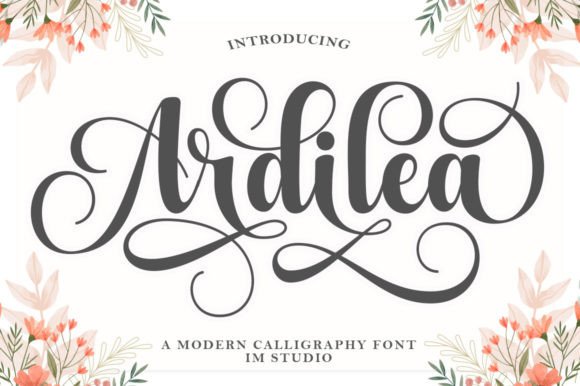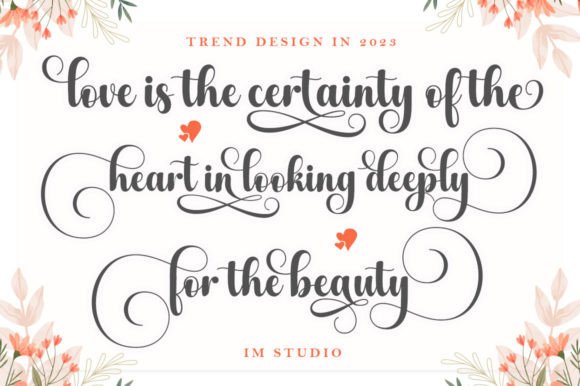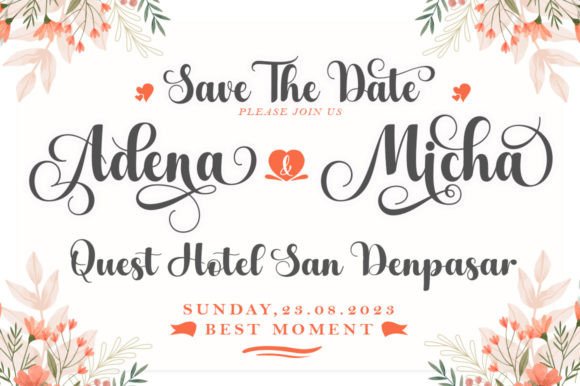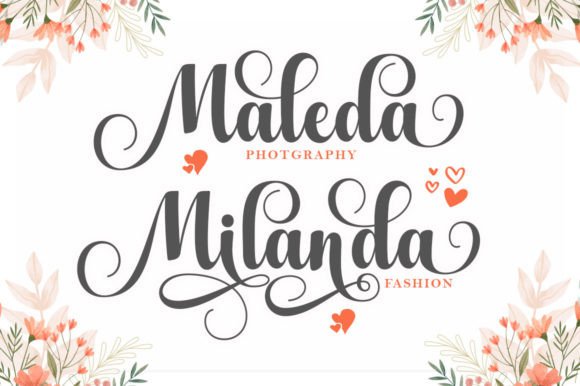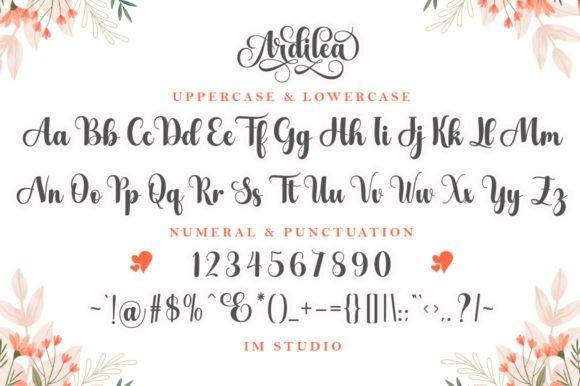
About Ardilea Font
Ardilea font is a modern and flowing handwritten script that brings elegance and versatility to your creative projects. It features varied baselines, smooth lines, and gorgeous glyphs that add a unique, handcrafted touch to any design. Whether you’re working on branding, wedding invitations, social media graphics, or product packaging, Ardilea’s stunning alternatives and flowing style elevate your work to the next level. This font is PUA encoded, giving you easy access to all glyphs, swashes, and stylistic alternates.
Modern and Flowing Handwritten Style
The Ardilea font combines smooth, natural strokes with varied bases, creating a dynamic rhythm in your typography. Its flowing letterforms are complemented by beautiful alternative characters and glyphs, designers to customize their text with and creativity. This makes Ardilea a great choice for both formal and casual projects, providing balance between readability and style.
Ideal Uses for Ardilea Font
This versatile handwritten font works well in:
Logo and branding designs
Wedding invitations and event stationery
Social media posts and digital content
Product packaging and labels
Editorial headlines and inspirational quotes
Using Ardilea fon adds a fresh, elegant, and personal feel to your designs.
Why Choose Ardilea Font?
Designers favor Ardilea for its:
Modern, flowing handwritten style
Clear, artistic letterforms with beautiful
PUA encoding for full access to glyphs and swashes
Flexibility for print and digital projects
Add Elegance and Versatility to Your Designs
Typography shapes the mood of your project. The Ardilea font adds a graceful flow and handcrafted warmth that enhances your design’s personality. Its lets you craft stunning visuals that are both modern and personal.
Final Thoughts on Ardilea Font
In summary, Ardilea fon is a modern and flowing script ideal for designers looking for an elegant and adaptable typeface. Add Ardilea to your fon collection to create memorable, and beautiful designs.